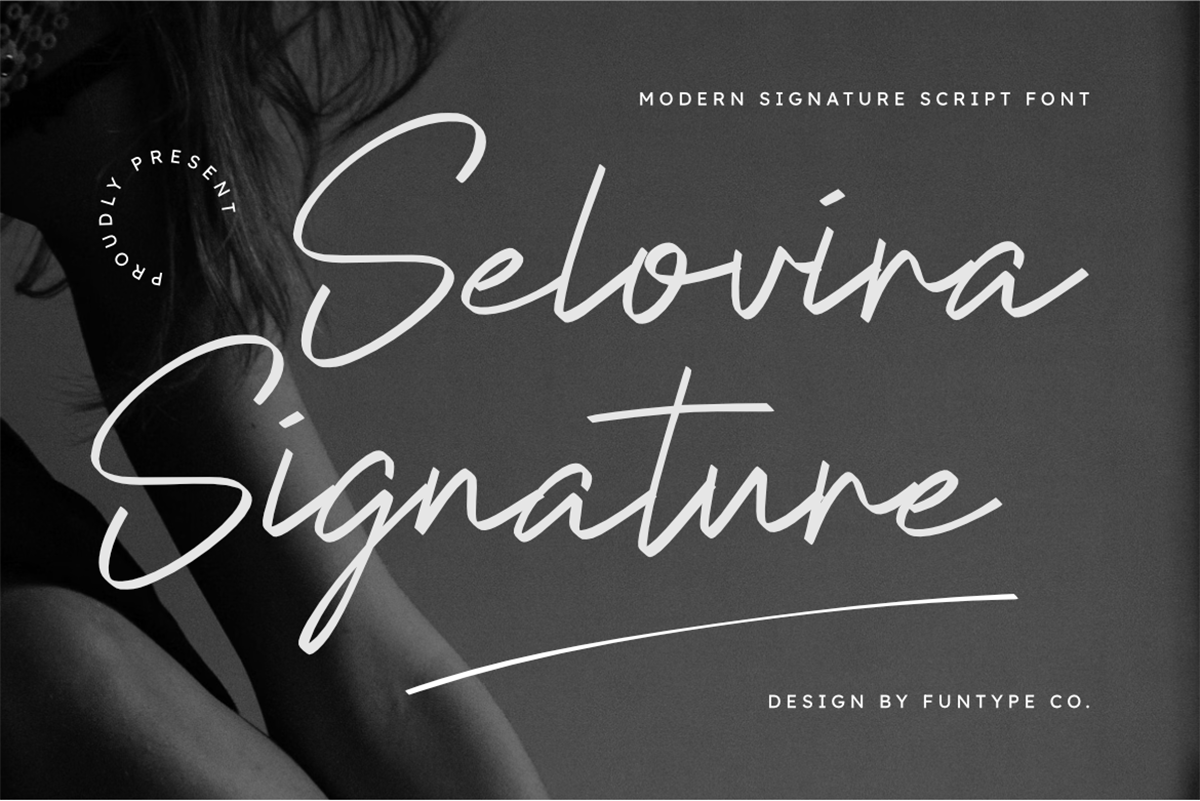
Selovina Signature Font is a sophisticated and fluid signature script font, meticulously designed to capture the essence of modern elegance and personal style. With its natural handwritten flow and refined monoline strokes, Selovina Signature offers a bespoke aesthetic that brings an air of authenticity to any creative project.
This font is the perfect choice for designers looking to add a professional yet intimate touch to their work. Whether you are crafting a luxury brand identity, a chic boutique logo, or elegant editorial layouts, Selovina Signature provides a seamless blend of contemporary flair and timeless grace.